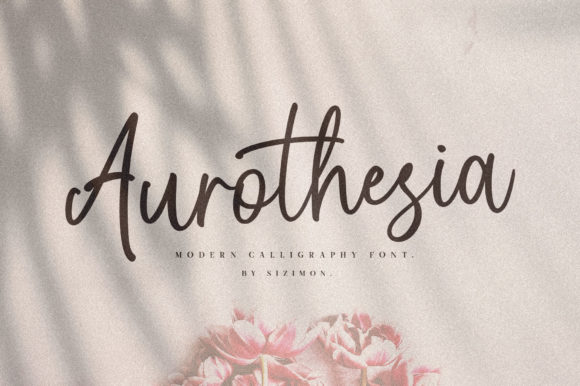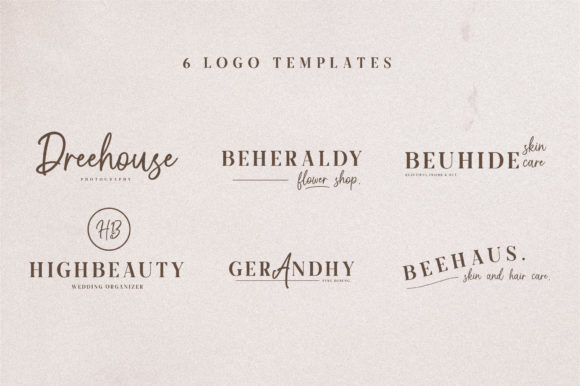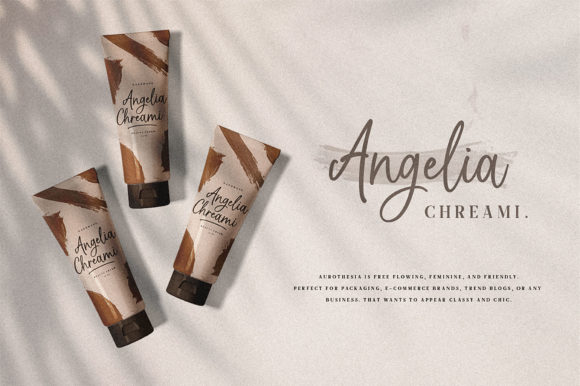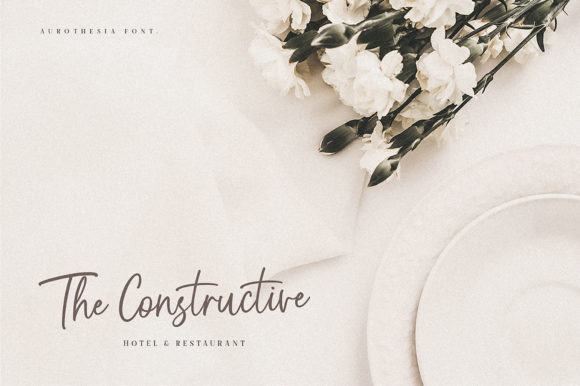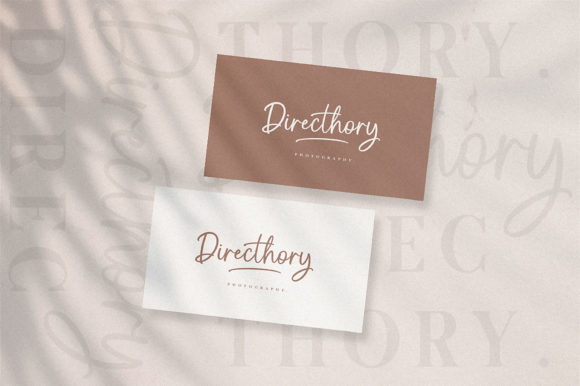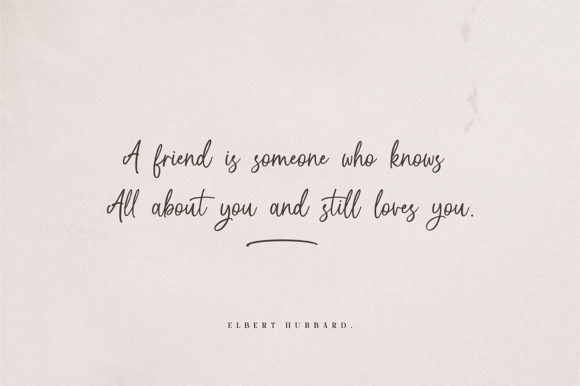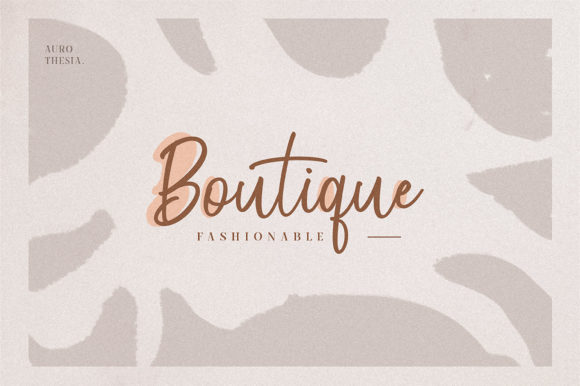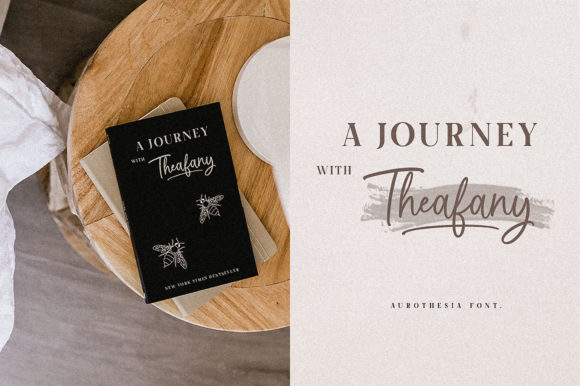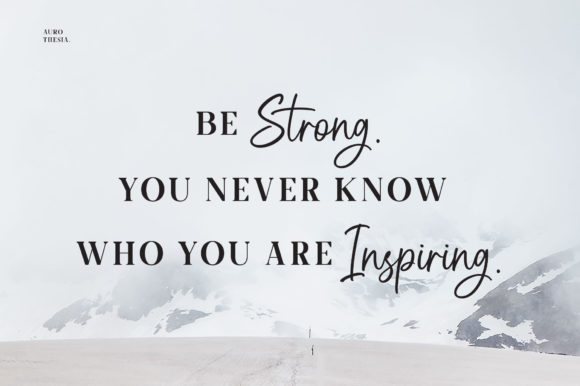
Aurothesia Font
About Aurothesia Font
Aurothesia is a gorgeous, incredibly sweet handwritten font. Fall in love with Aurothesia’s incredibly versatile style and use it to create gorgeous wedding invitations, beautiful stationary art, eye-catching social media posts, and much more!